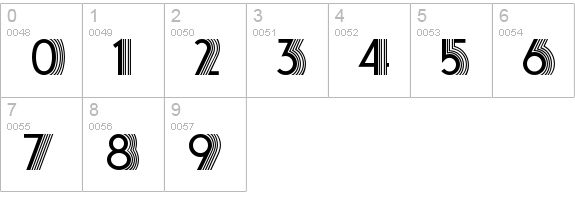
Atlas Font Details
Introducing Atlas font - a modern and stylish typeface that is perfect for various design projects. With its clean lines and elegant curves, Atlas font exudes a sense of sophistication and professionalism. This versatile font is ideal for creating eye-catching headlines, logos, branding materials, and more. One of the best things about Atlas font is that it is completely free to download. You can easily access this beautiful typeface at FontsMarket.com and enhance your design projects with its timeless appeal. Whether you are a graphic designer, a marketer, a business owner, or anyone looking to elevate their visual communication, Atlas font is sure to make a lasting impression. Download it today and add a touch of class to your creations!